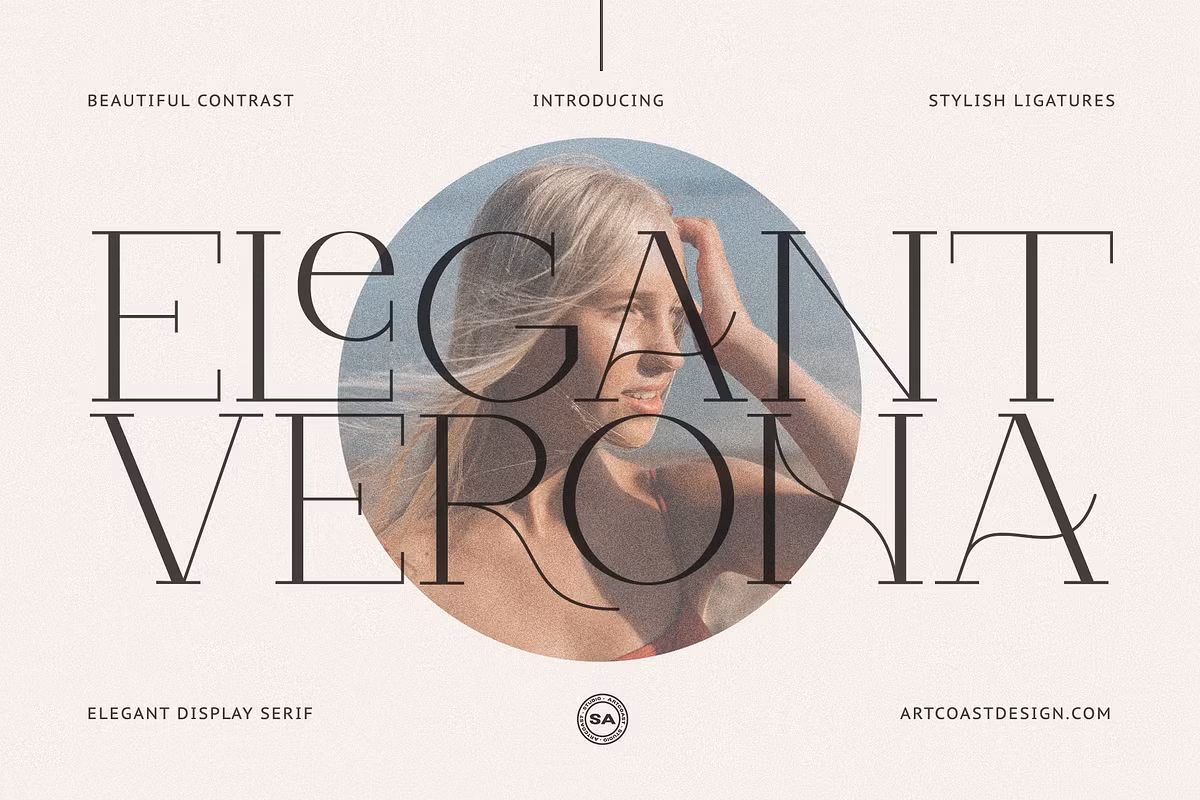
Verona - Elegant Serif Font Free Download
You must purchase this font for commercial use. However, you can download Verona – Elegant Serif Font Free Download for testing purposes. Verona is a refined and sophisticated serif font designed to bring a timeless, luxurious feel to your projects. Its clean lines, graceful serifs, and high contrast strokes make it ideal for high-end branding, fashion editorial designs, invitations, and elegant marketing materials.
With its classy and professional aesthetic, Verona offers both readability and style, making it perfect for headlines, logos, or body text that require a touch of elegance. Whether you're working on a luxury brand, an upscale magazine, or a stylish invitation suite, Verona adds a polished and refined edge to your typography.